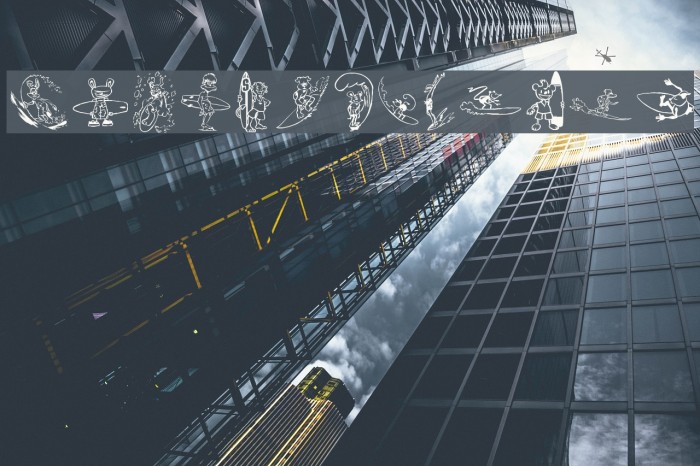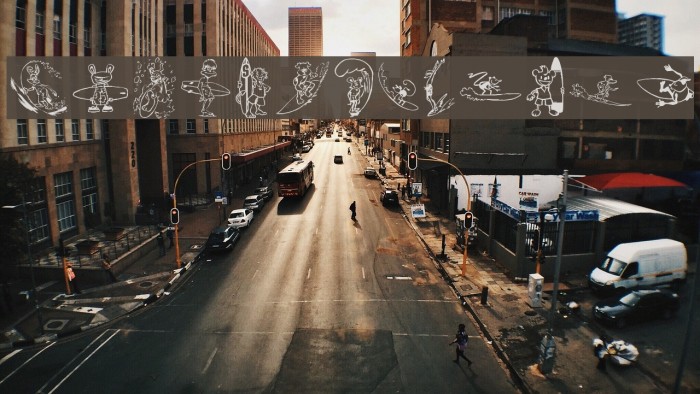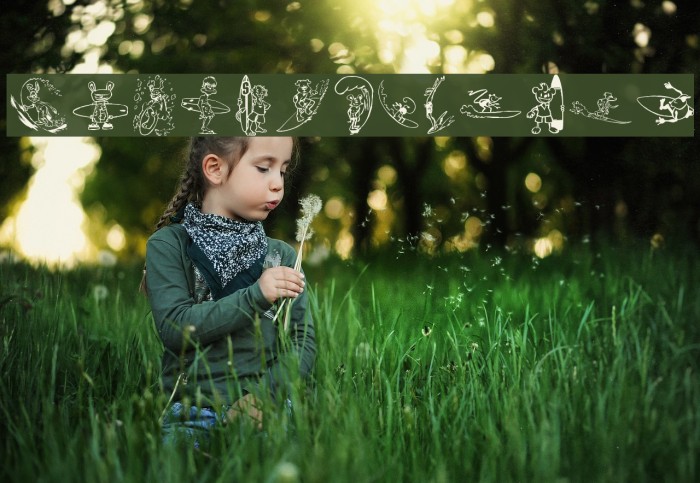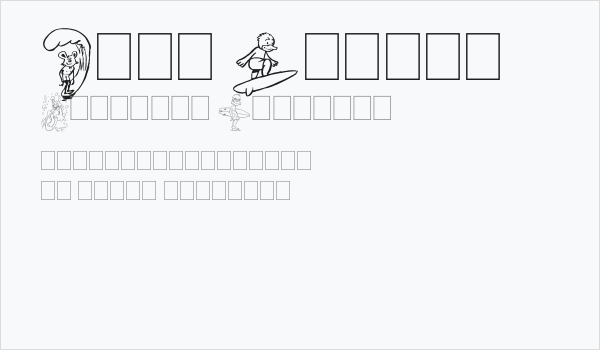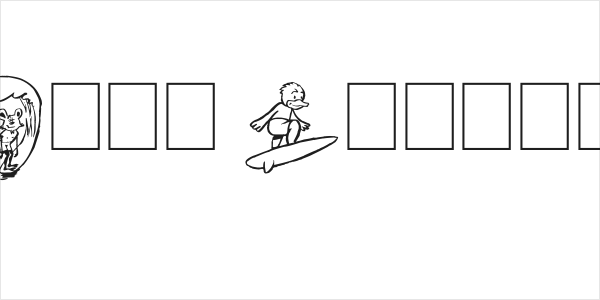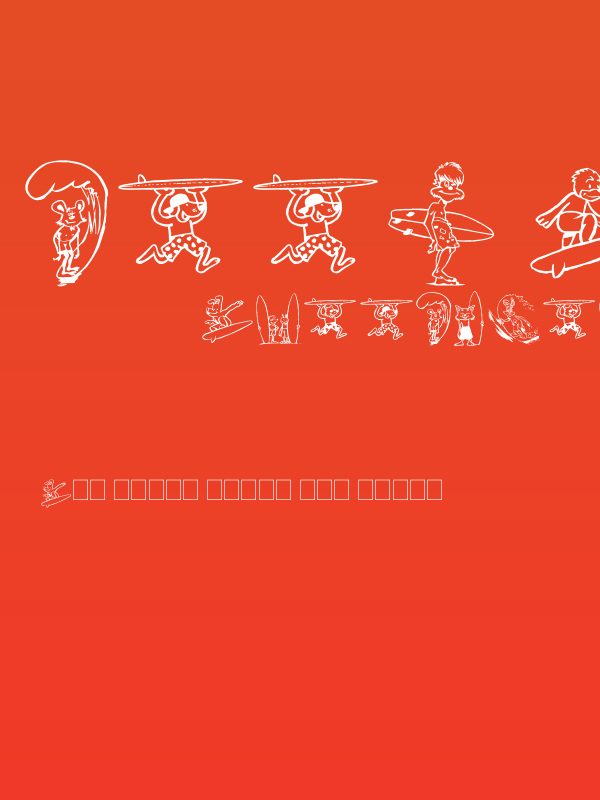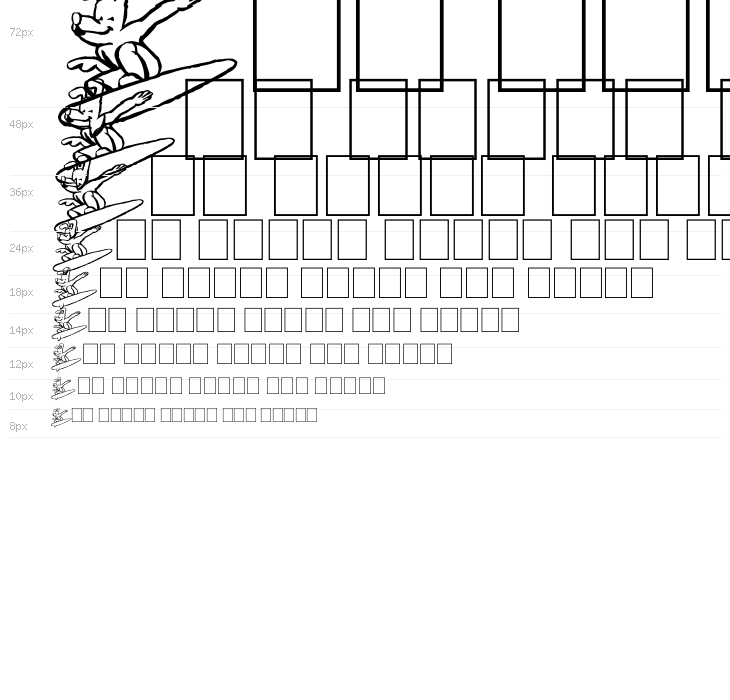
Good Vibers Font
Good Vibers Description
A playful, decorative font featuring cartoon-style surfing characters and beach-themed illustrations in place of standard letterforms. Each glyph is a unique drawing, emphasizing a fun and relaxed vibe with a hand-drawn, whimsical aesthetic.
| Overall Style | Playful, Whimsical, Decorative |
| Use Case | Logos, Posters, Invitations, Themed Graphics |
| Proposed Projects | ChildrenΓ’β¬β’s party invitations, summer event posters, surf shop branding, playful merchandise, themed social media graphics. |